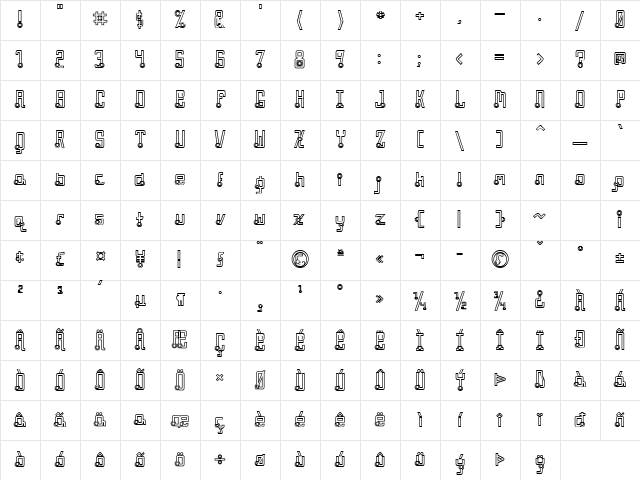
Quasidipitous Hollow Regular Free Font
Quasidipitous Hollow Regular
Design Context for Quasidipitous Hollow
Quasidipitous Hollow is a composed and adaptable typeface that performs quietly and consistently across a wide range of design contexts.